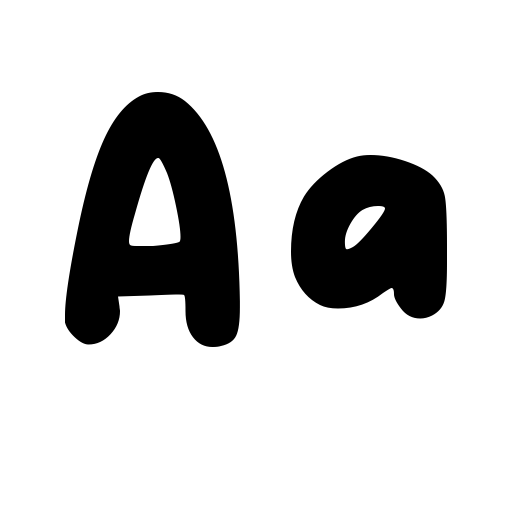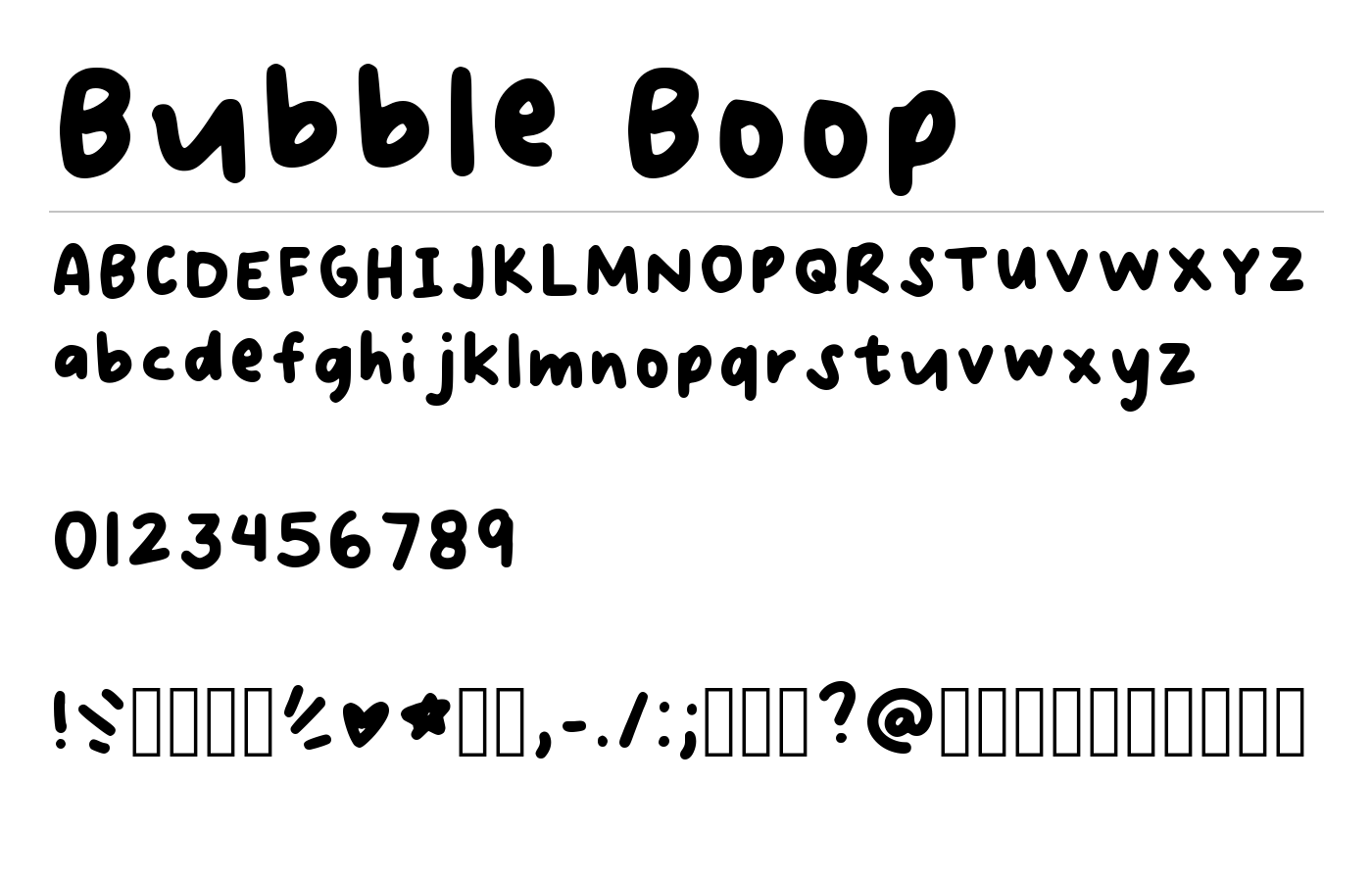
Bubble Boop is a playful and rounded sans serif font with a friendly, hand-drawn style. Its bold, bubbly letterforms create a lively and approachable feeling, making it ideal for children’s designs, casual branding, and fun headlines. This font works best where a cheerful and informal tone is desired, such as posters, packaging, and playful web graphics.